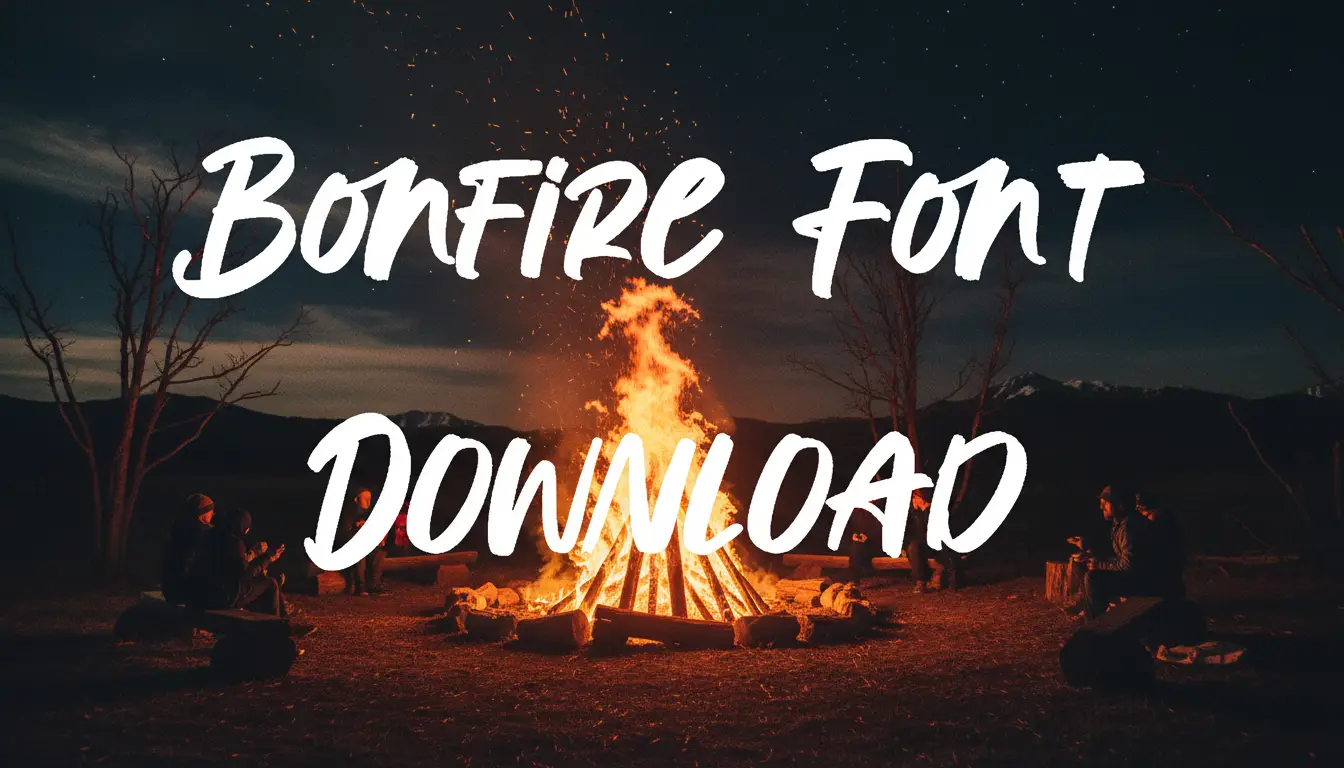
Bonfire Font
Bonfire
Bonfire is a script font created by Alpaprana Studio. Its flowing, pen-made letters give names and short phrases a personal, polished look. You can download it for free and test it with your own words in the preview above.
- Designer: Alpaprana Studio
What You Can Type With Bonfire
With complete upper and lowercase letters and all ten digits, Bonfire is ready for real wording, not just a single headline. Common punctuation such as &, !, ? and @ is included as well. It also has the accented letters you need for Spanish, French, German, Portuguese and Italian.
Where Bonfire Works Best
Think of Bonfire for wedding invitations, logos and signature-style headings. Script fonts read best in short bursts, so keep it to names, titles and one-line quotes. Skip all caps: script capitals are drawn to start a word, not to fill one.
Does Bonfire support accented letters?
Yes. Bonfire includes the accented letters needed for Spanish, French, German, Portuguese and Italian, so it works for more than just English.